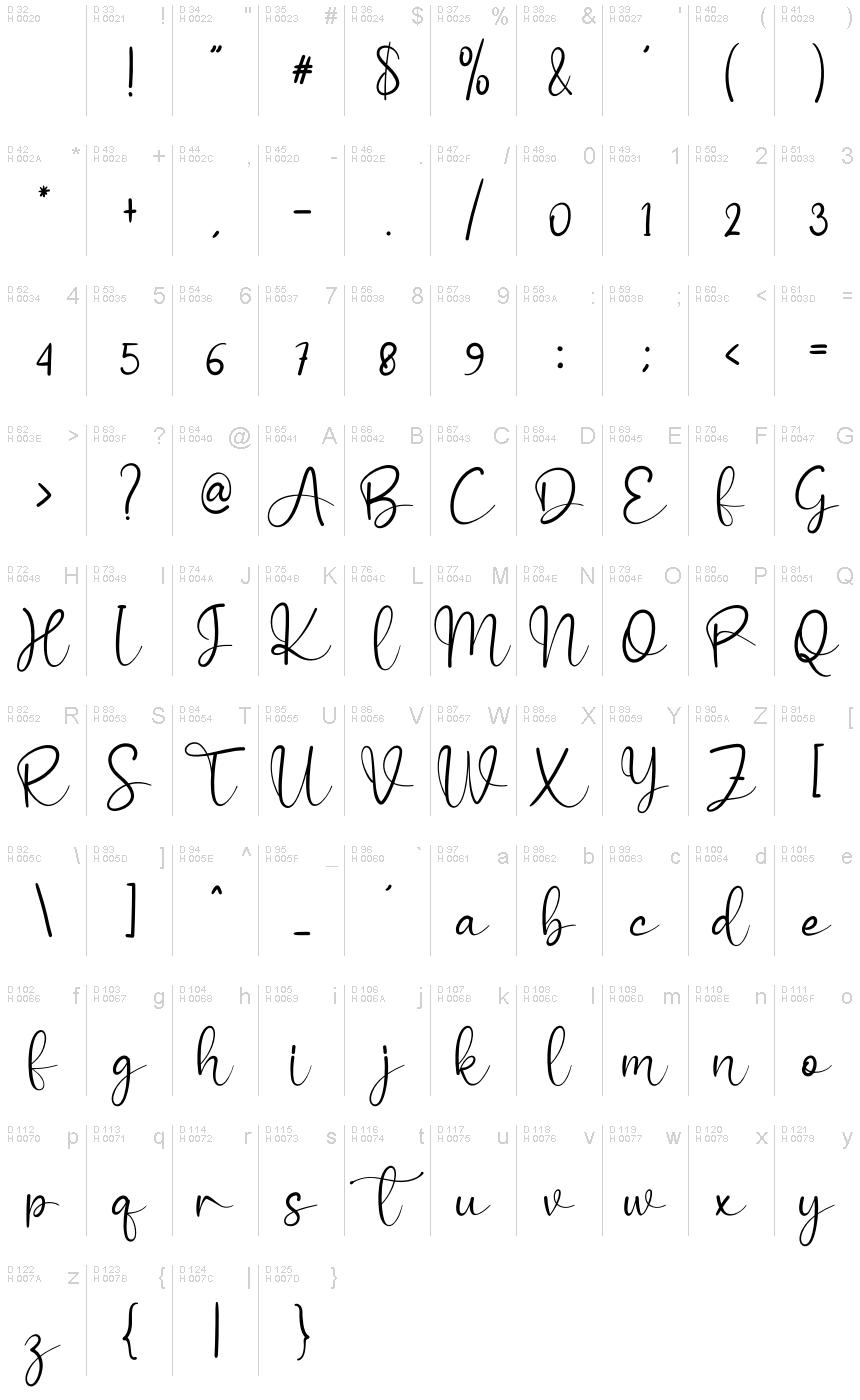
Butterfly Valentine
Butterfly Valentine, designed by Scratchones, exudes a personal touch with its handwritten style. Its light weight lends an air of delicacy and intimacy, making it an ideal choice for projects that require a gentle, personalized feel. The flowing curves and elegant swashes mimic the carefree dance of a butterfly, evoking romance and whimsy. This font's aesthetic appeal lies in its ability to convey warmth and authenticity, perfect for invitations, greeting cards, and branding that aim to establish a connection with the audience through its graceful appearance.
Butterfly Valentine is not just a typeface; it's an artistic expression that adds soulful storytelling to any creative endeavor.